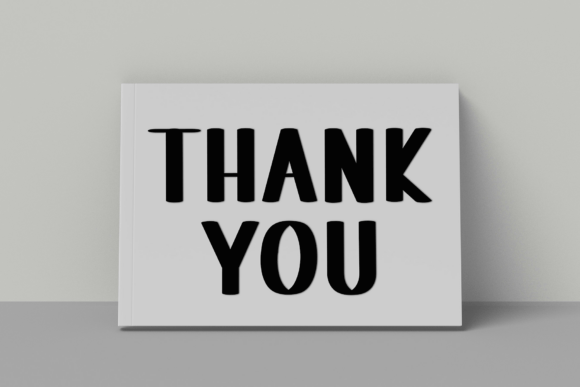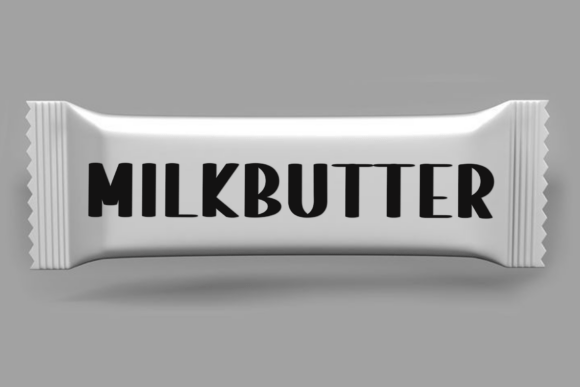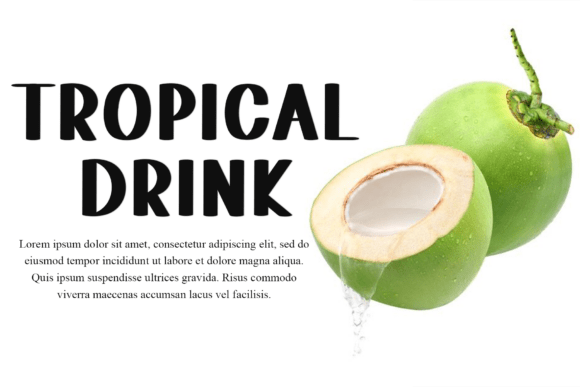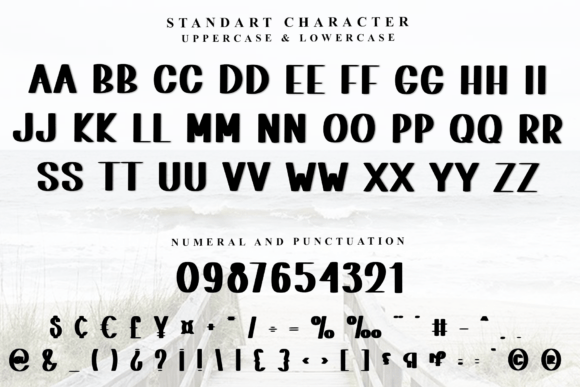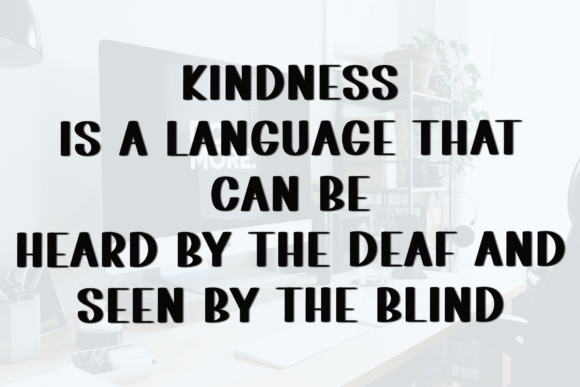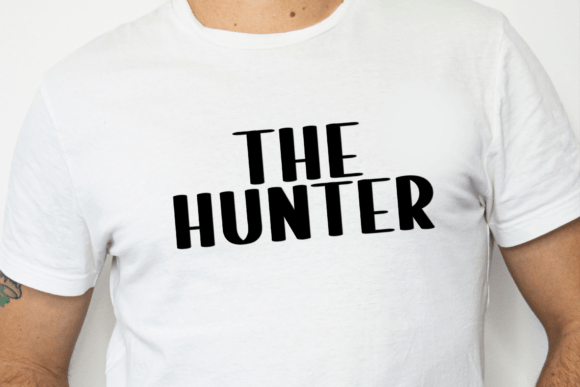
Introduction to Light Breeze Font
The moment of truth: you’re staring at a blank canvas, and the creative juices are flowing. You know exactly what you want to say, but the words just aren’t coming together. That’s where a great font can make all the difference – and for many designers, the Light Breeze Font is the perfect partner in crime.
With its bold, authoritative display style and clean, contemporary silhouette, this font is a game-changer for anyone looking to make a statement. Whether you’re working on a high-impact editorial title, a creative logo design, or a social media quote that demands attention, the Light Breeze Font is a versatile design resource that’s sure to deliver.
What sets this font apart is its unique character geometry, giving it a custom, modern-art feel that’s perfect for designers who want to add a touch of personality to their projects. And with its high quality, transparent background, you can be sure that your designs will stand out from the crowd – all without breaking the bank, thanks to its free download option.
- High-quality design resource suitable for creative projects, offering a unique and elegant style.
- Perfect for use in logo design, typography, and other creative projects where a clean and minimalist aesthetic is desired.
Honest Review: Light Breeze Font
I recently had the chance to work with the Light Breeze Font in a creative project, and I must say it’s been a pleasant experience. This font is a great addition to any designer’s toolkit, especially for those looking for a free download with high quality.
- ✨ What works well: The Light Breeze Font is incredibly versatile and can be used for a wide range of design projects, from headers to body text. Its clean and minimalist design makes it perfect for creating a professional and modern look.
- ✨ Another great feature is that it has a transparent background, making it easy to use with any design element. This adds a lot of flexibility to the font, allowing designers to get creative with their projects.
However, there are a few limitations to consider: ⚠️ The font may not be suitable for projects that require a lot of bold or condensed text, as it can become difficult to read at smaller sizes. Additionally, the font family is quite limited, so you may not have as many options as you would with a paid font.
Overall, I’m impressed with the Light Breeze Font and would definitely recommend it as a design resource for any creative project. Its high quality and versatility make it a great choice for designers looking for a reliable and free font.
The Light Breeze Font is a high-quality, free download design resource ideal for creative projects that require a unique and elegant touch. Its transparent background makes it easy to integrate into any design.
To get the most out of the Light Breeze Font, use it in conjunction with other high-quality design resources. Experiment with different font sizes, colors, and styles to create a unique and eye-catching design.
The Light Breeze Font is ideal for creative projects such as logos, brochures, and business cards. Its elegant and sophisticated design makes it perfect for professional and personal branding.